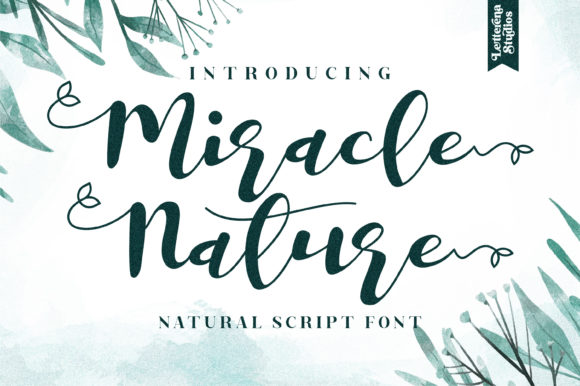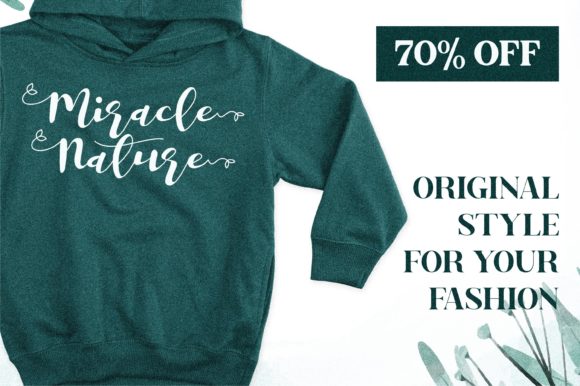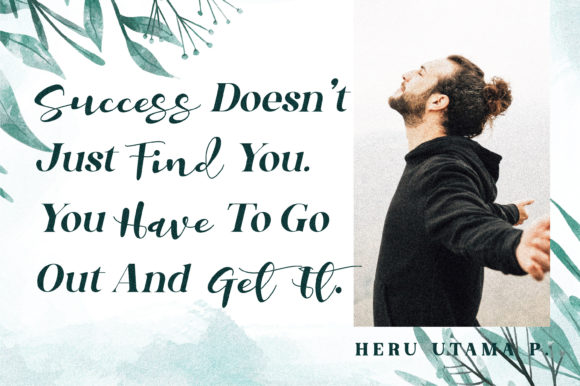
About Miracle Nature Font
Miracle Nature feels equally charming and elegant. It looks stunning on wedding invitations, thank you cards, quotes, greeting cards, logos, business cards and every other design which needs a handwritten touch.